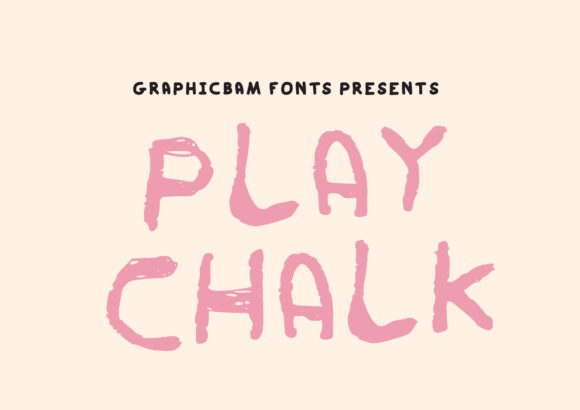
Introducing Play Chalk Font: A Delightful Handwriting With Blackboard Charm
Embark on a typographic journey with Play Chalk, a display font exuding charm and playfulness that's perfect for your Print Ad projects. Inspired by the classic 'Play' font, GraphicsBam Fonts presents this chalk-effect version, retaining its childlike innocence. Its rounded sides and handwritten strokes bring warmth and friendliness to your designs.
With Play Chalk, your words come alive with the charm of a chalkboard, evoking nostalgia and a touch of artisan flair. This font family is ideal for projects related to education, schools, or any venture seeking a handcrafted aesthetic. Whether creating homeschooling materials, designing invitations, or crafting heartfelt messages, Play Chalk adds a personal touch that resonates.